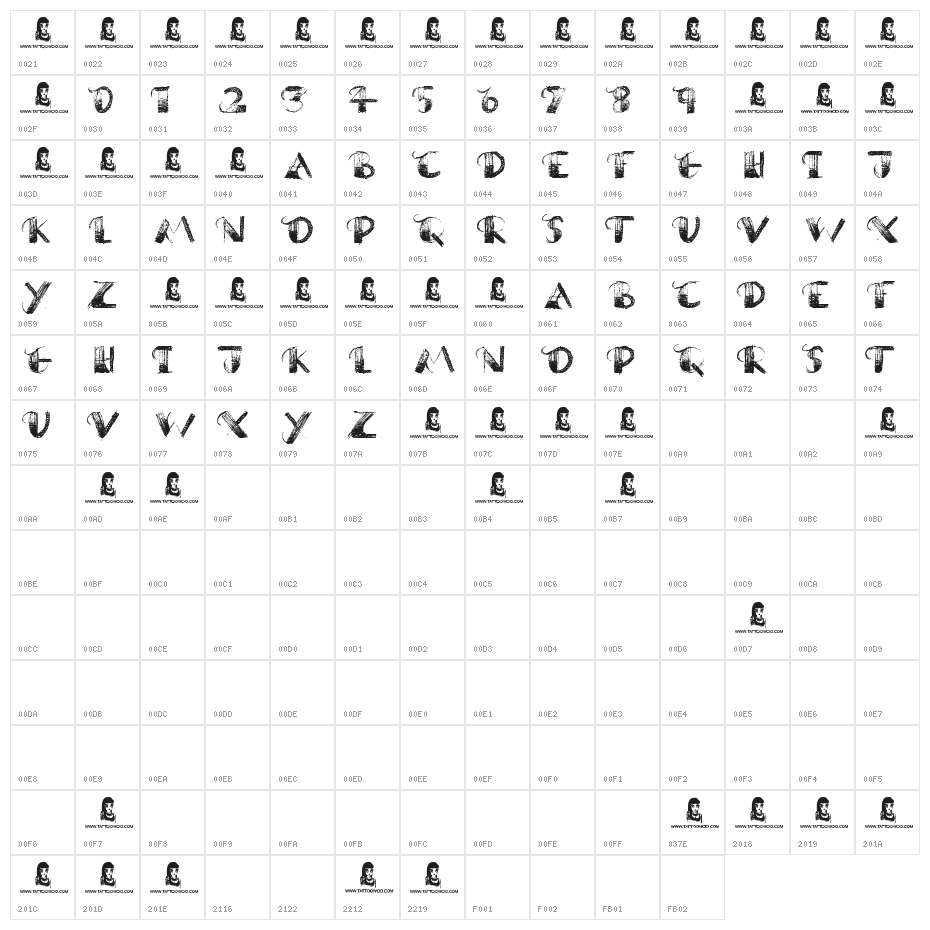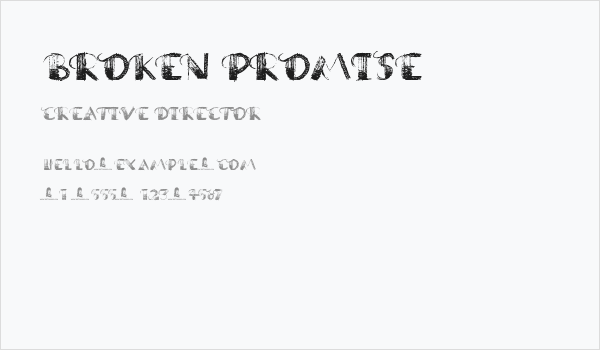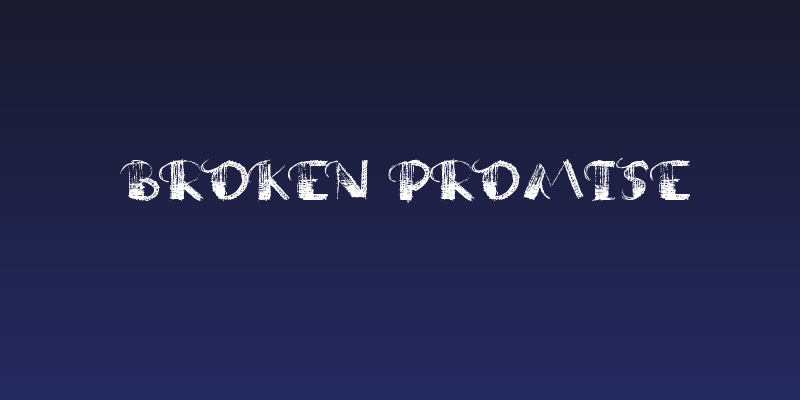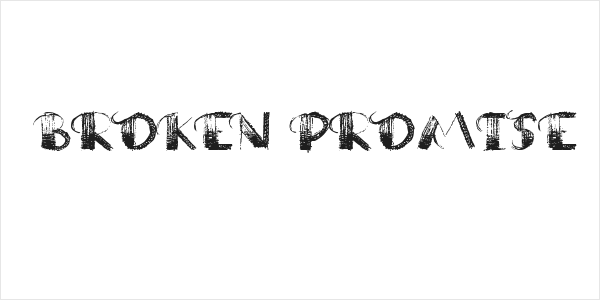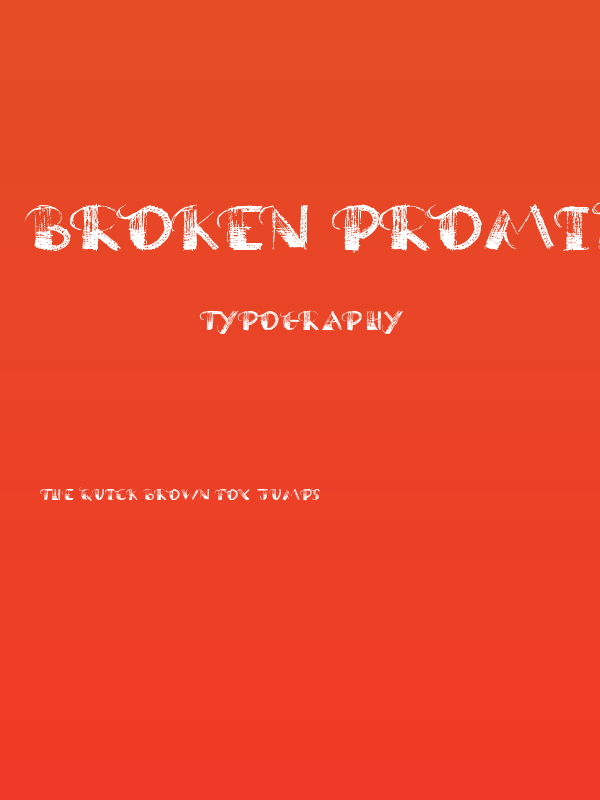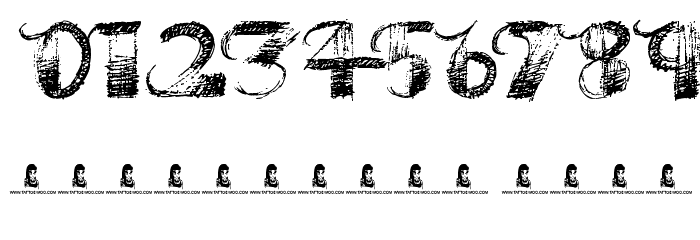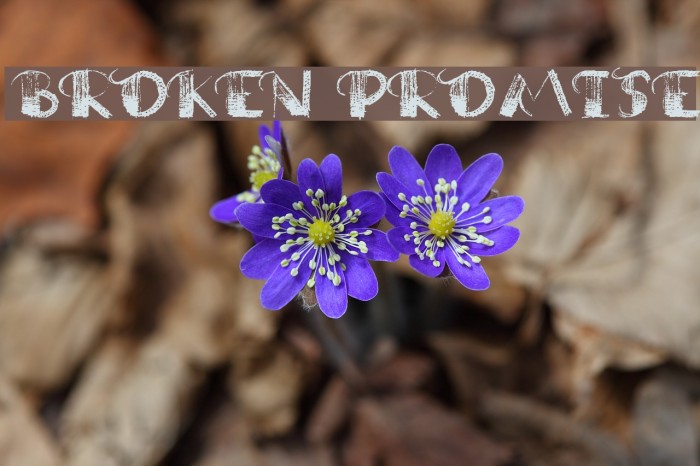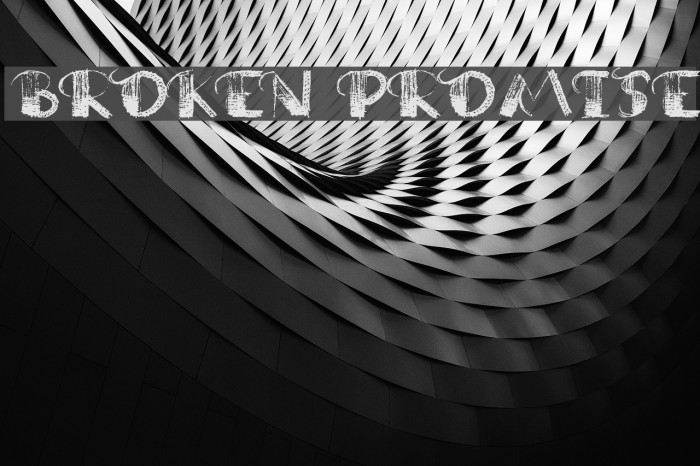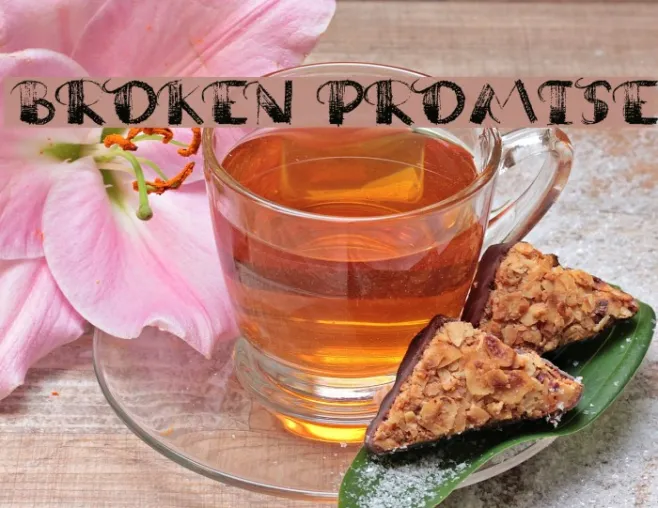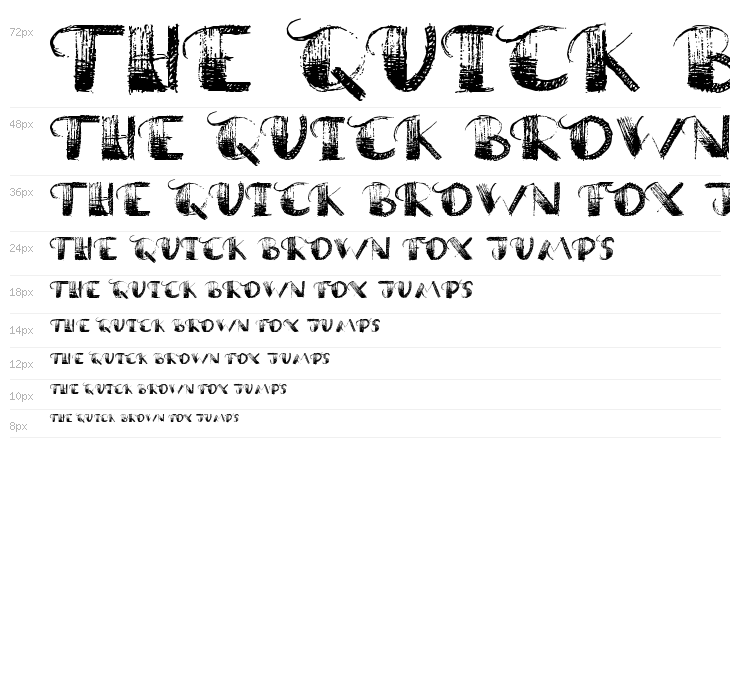
Broken Promise Font
Broken Promise Description
This font features a distressed, grunge style with a textured appearance that mimics brush strokes or ink splatters. The characters have a bold presence with uneven edges and varying stroke widths, giving them a dynamic and edgy look. The uppercase and lowercase letters maintain a consistent style, while the numbers and special characters complement the overall aesthetic. This font's unique design makes it stand out, ideal for projects that require a raw, artistic touch.
| Overall Style | Grunge, Artistic |
| Proposed Projects | Ideal for album covers, posters, urban-themed designs, and artistic branding. |